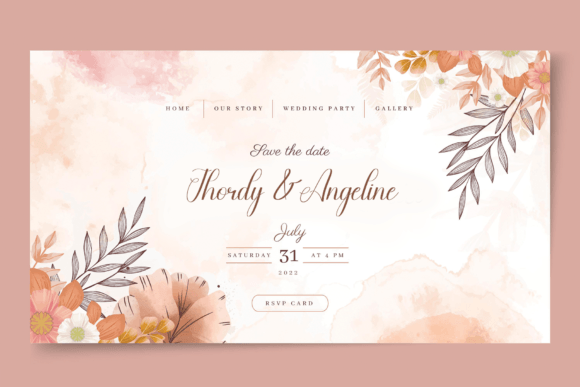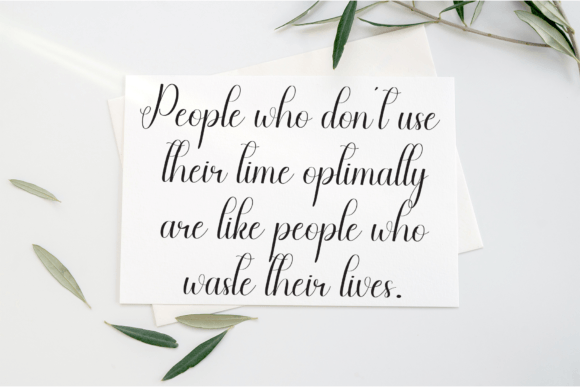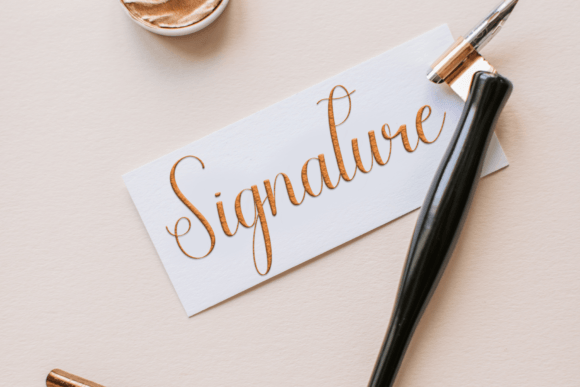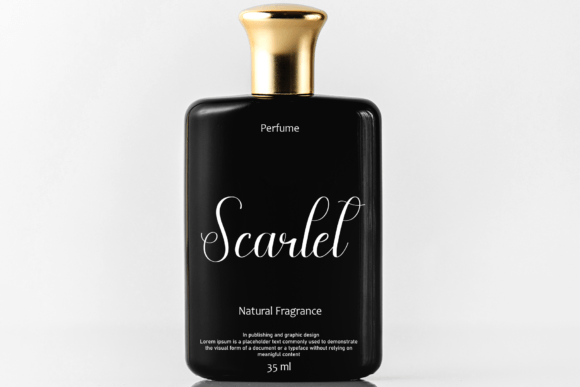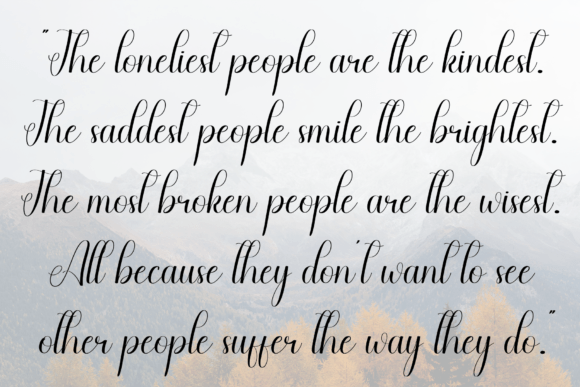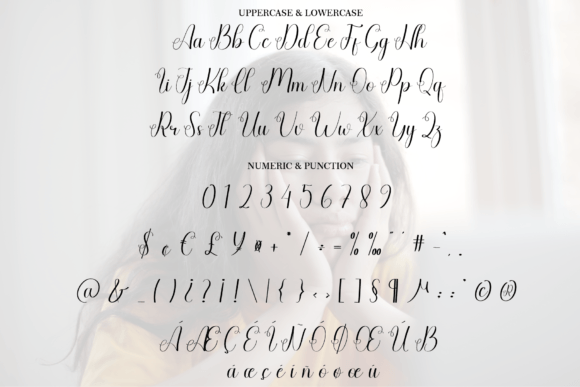
Boring Font: The Sweet and Friendly Handwritten Font for Your Creative Projects
Are you tired of using the same old fonts for your designs? Look no further! Boring Font is a sweet and friendly handwritten font that’s perfect for adding a lovely touch to your creative projects. In this article, we’ll dive into the world of Boring Font and explore its features, uses, and benefits for designers and crafters.
What is Boring Font?
Boring Font is a handmade, handwritten font that’s designed to bring a touch of warmth and personality to your designs. It’s a cute and fun font that’s ideal for writing wedding invitations, cards, or any other design that might need a lovely touch. With its sweet and friendly vibe, Boring Font is sure to capture the hearts of your audience and make your designs stand out.
Features of Boring Font
Boring Font comes with a range of features that make it perfect for creative projects. Some of its key features include:
- Handwritten style: Boring Font has a beautiful, handmade quality that gives it a unique and personal touch.
- Cute and fun: This font is designed to be playful and fun, making it perfect for designs that need a lighthearted touch.
- Sweet and friendly: Boring Font has a warm and inviting vibe that’s sure to make your designs feel more approachable and relatable.
- High-quality design: This font is designed with high-quality craftsmanship, ensuring that it looks great in any design.
Uses of Boring Font
Boring Font is a versatile font that can be used for a wide range of creative projects. Some of its most popular uses include:
- Wedding invitations: Boring Font is perfect for writing beautiful, elegant wedding invitations that set the tone for a special day.
- Cards and stationery: This font is great for creating lovely cards, stationery, and other paper crafts that need a personal touch.
- Branding and packaging: Boring Font can be used to add a touch of personality to branding and packaging designs, making them more memorable and engaging.
- Digital designs: This font can be used for digital designs, such as social media graphics, blog posts, and email newsletters, to add a personal and creative touch.
Benefits of Using Boring Font
There are many benefits to using Boring Font in your creative projects. Some of the most significant advantages include:
- Unique and creative: Boring Font offers a fresh and creative alternative to traditional fonts, helping your designs stand out from the crowd.
- Easy to read: This font is designed to be easy to read, making it perfect for designs that need to communicate a message clearly.
- Versatile: Boring Font can be used for a wide range of creative projects, from wedding invitations to digital designs.
- High-quality design: This font is designed with high-quality craftsmanship, ensuring that it looks great in any design.
Tips for Using Boring Font
To get the most out of Boring Font, here are a few tips to keep in mind:
- Use it for headings and titles: Boring Font is perfect for headings and titles, where its playful and creative vibe can really shine.
- Pair it with other fonts: This font pairs well with other fonts, so feel free to experiment with different combinations to find the perfect look for your design.
- Experiment with colors and textures: Boring Font looks great in a range of colors and textures, so don’t be afraid to get creative and try out different effects.
Boring Font is a sweet and friendly handwritten font that’s perfect for adding a lovely touch to your creative projects. With its cute and fun vibe, high-quality design, and versatility, this font is sure to become a favorite among designers and crafters. Whether you’re creating wedding invitations, cards, or digital designs, Boring Font is a great choice for anyone looking to add a personal and creative touch to their work.